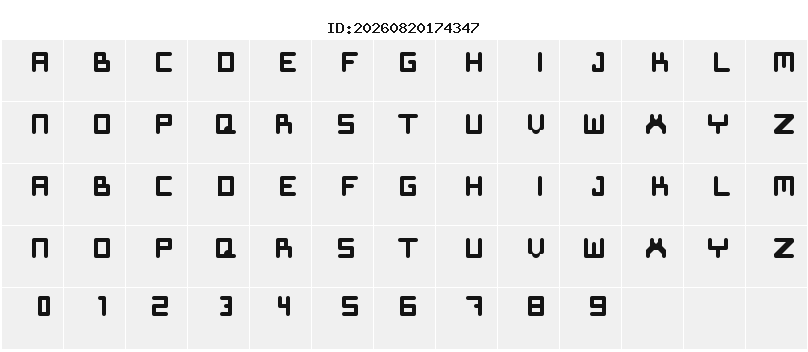
SeppeFont Preview
• Font Name: SeppeFont
• Full Font Name: SeppeFont Regular
• Designer: SeppeS
• Description: “SeppeFont” was built with FontStruct
About SeppeFont.ttf
SeppeFont.ttf is a modern, elegant sans-serif font designed for ultimate readability and visual harmony. Perfect for branding, headlines, web design, and print materials.